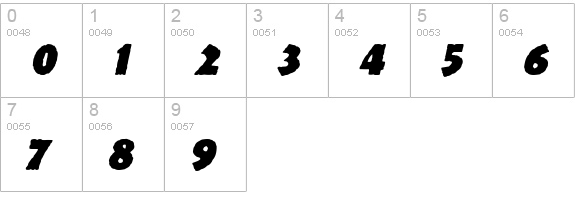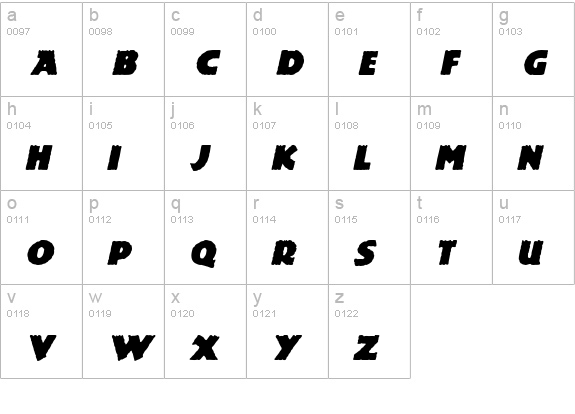
Dinosauria Italic Font Details
Dinosauria Italic is a distinctive, italic variant in the Dinosauria typeface family \xE2\x80\x94 well suited to design and typography projects.
Dinosauria Italic font is a bold and dynamic typeface that exudes strength and power. Its sharp, angular design embodies the ferocity of the mighty dinosaurs that once roamed the earth. The slanted italic style adds a sense of movement and energy to any text, making it perfect for projects that require a touch of wildness and adventure. This unique font is not only visually striking but also highly versatile, suitable for a wide range of design applications including posters, logos, headlines, and more. Whether you're looking to make a bold statement or add a touch of prehistoric flair to your designs, Dinosauria Italic font is sure to make a lasting impression. Best of all, Dinosauria Italic font is available for free download at FontsMarket.com. So unleash your creativity and bring a touch of the ancient world to your next project with this stunning typeface.